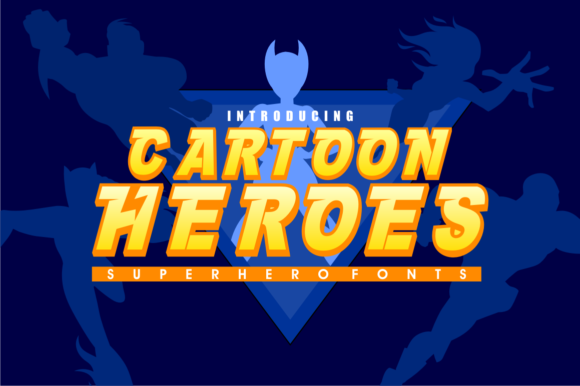
The Quest for the Perfect Font: Discovering Cartoon Heroes
Ah, the eternal struggle of finding the right font for your design project. I recall a particularly frustrating moment when I was working on a sports branding project, and my client requested a font that was “bold, yet playful.” I scoured the internet, tried countless fonts, but nothing seemed to fit the bill. That was until I stumbled upon Cartoon Heroes, a game-changing display font that has since become a staple in my design toolkit.
A First Impression: What Makes Cartoon Heroes Special
Cartoon Heroes is a cool and thick lettered display font, expertly crafted to make your creations look out of this world. Its unique charm and versatility make it an ideal choice for a variety of projects, from web designs and sports branding to craft and hobbyist endeavors.
An Honest Review: The Good, the Bad, and the Quirks
What I Love About Cartoon Heroes ✨
- 💥 **Impactful and attention-grabbing**: Cartoon Heroes is perfect for headlines, titles, and any text that needs to make a statement.
- 🎨 **Customizable**: With OpenType features and glyphs, you can experiment with different styles and alternates to match your brand’s personality.
- ⚠️ **Limited use for body text**: Due to its bold and playful nature, Cartoon Heroes might not be the best choice for lengthy paragraphs or body text.
- 🤔 **Some characters may require manual kerning**: While the font is generally well-spaced, some character combinations might require manual adjustment for optimal readability.
The Designer’s Inspiration: A Backstory
Cartoon Heroes was born out of a passion for playful, bold typography. Its designer, a self-proclaimed comic book enthusiast, aimed to create a font that captured the essence of superhero logos and cartoon titles. With Cartoon Heroes, they sought to empower designers and creatives to add a touch of whimsy and excitement to their projects.
Q: What type of projects is Cartoon Heroes best suited for?
A: Cartoon Heroes is ideal for projects that require a bold, playful font, such as sports branding, web designs, and craft projects.
Q: Does Cartoon Heroes support OpenType features?
A: Yes, Cartoon Heroes includes OpenType features, glyphs, and stylistic alternates, allowing for customizable typography.